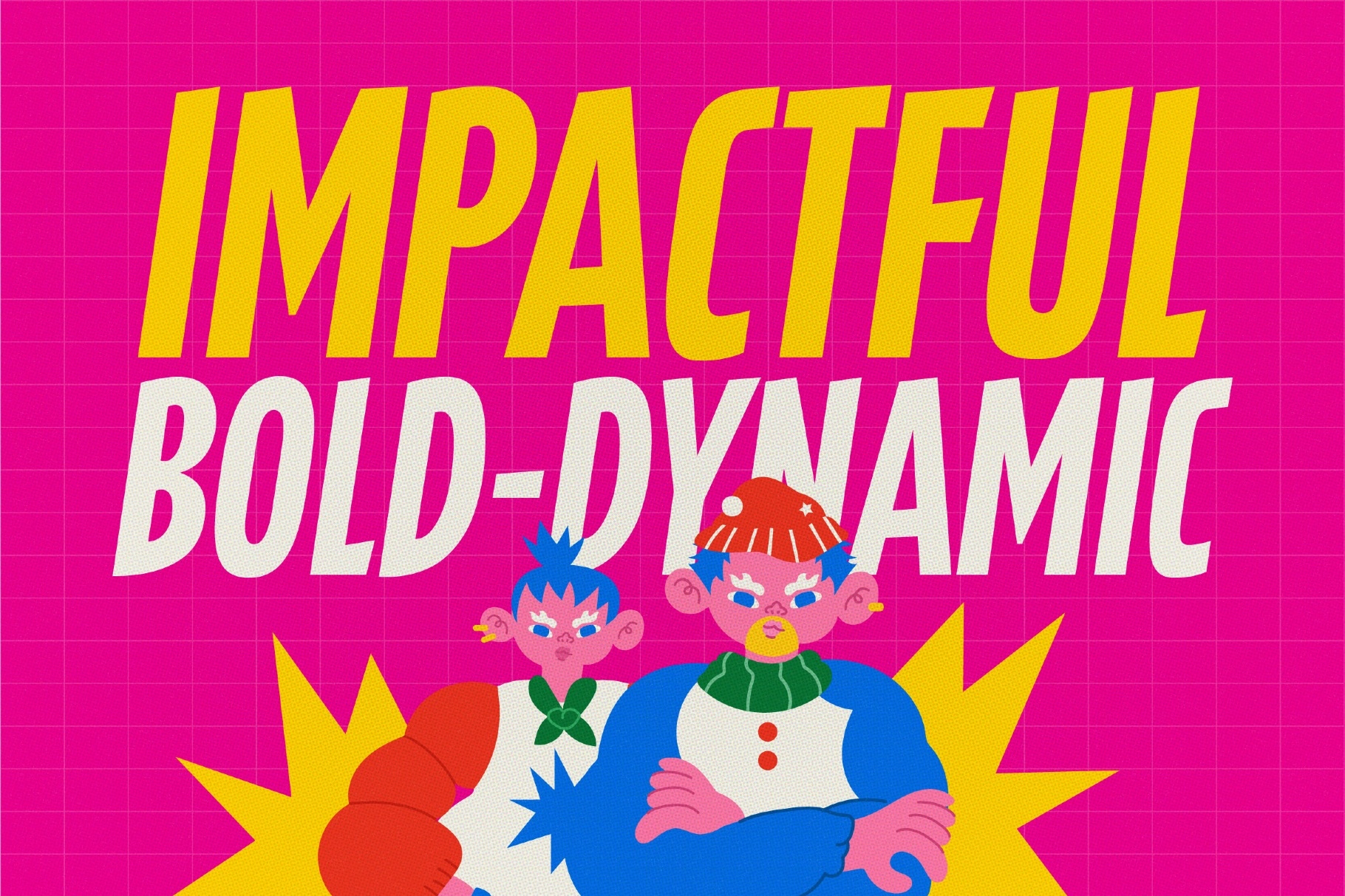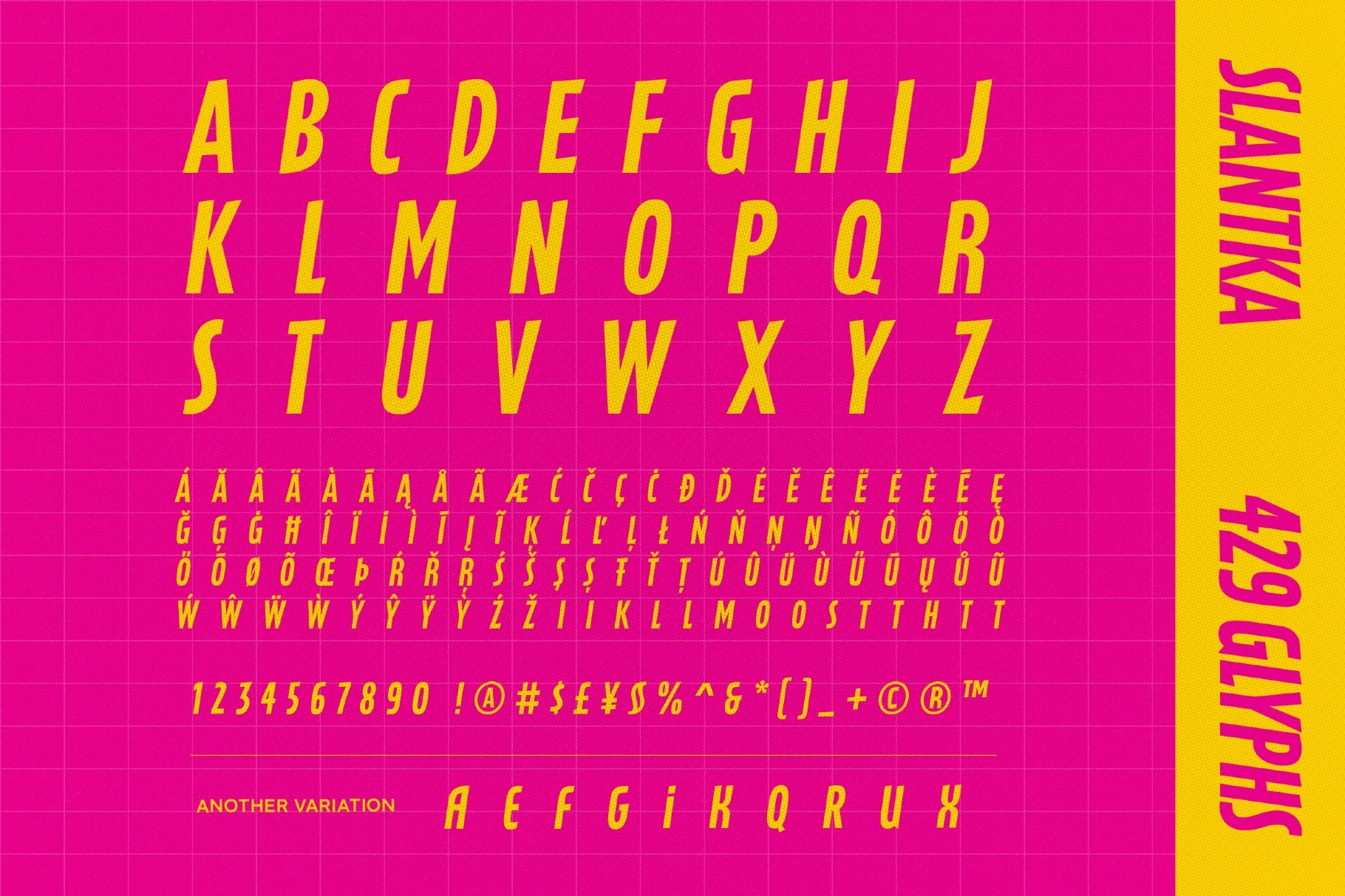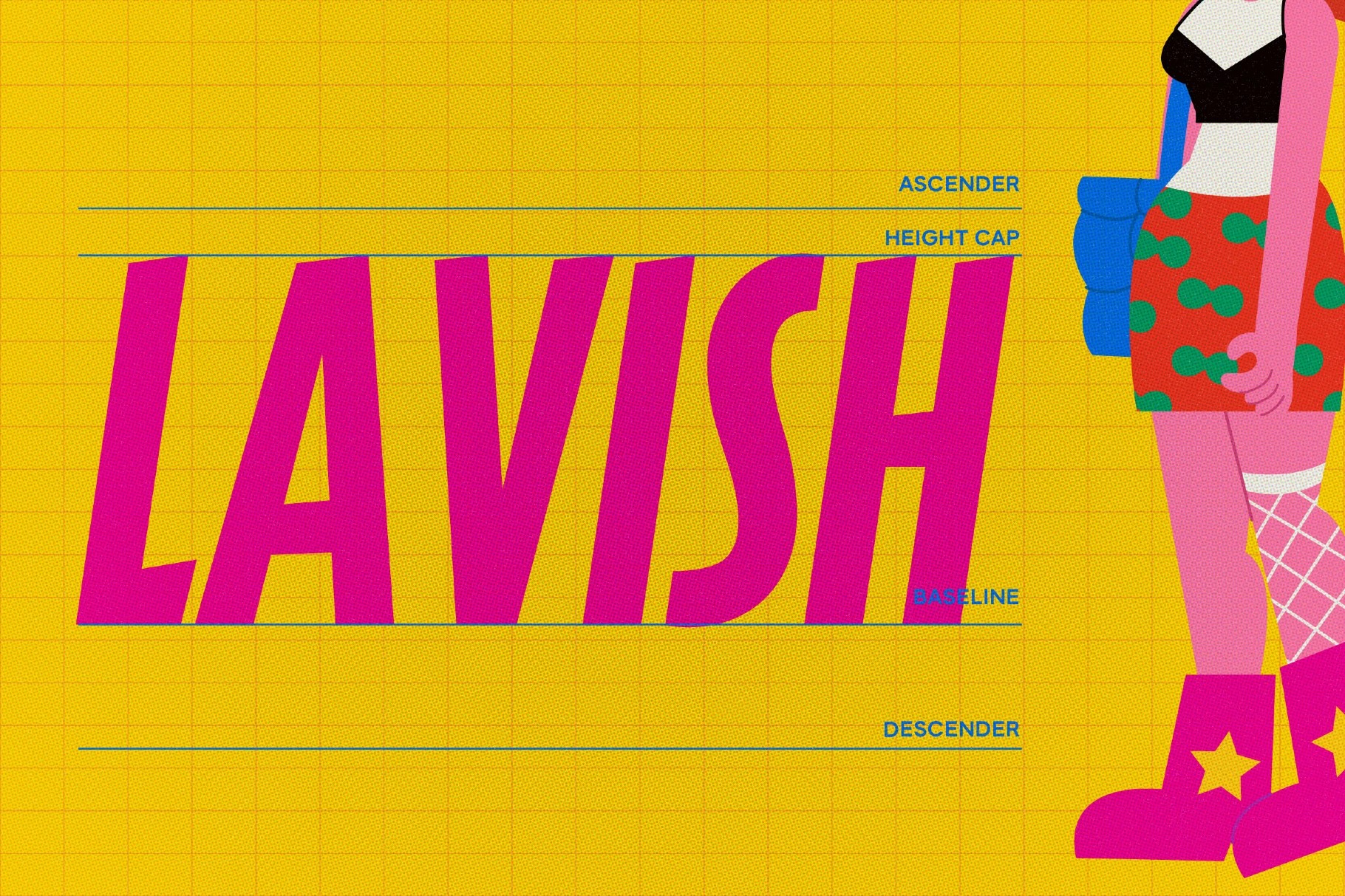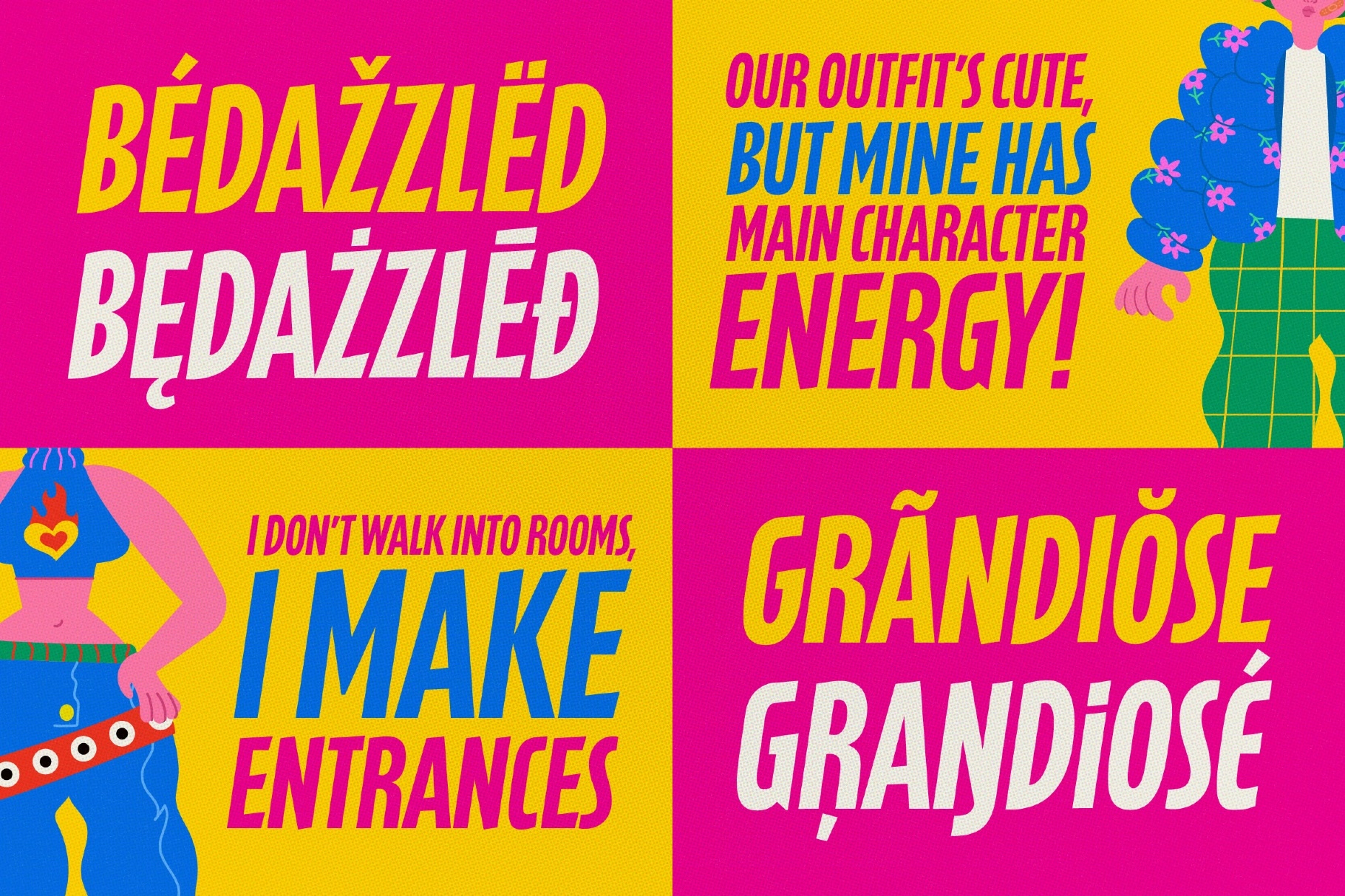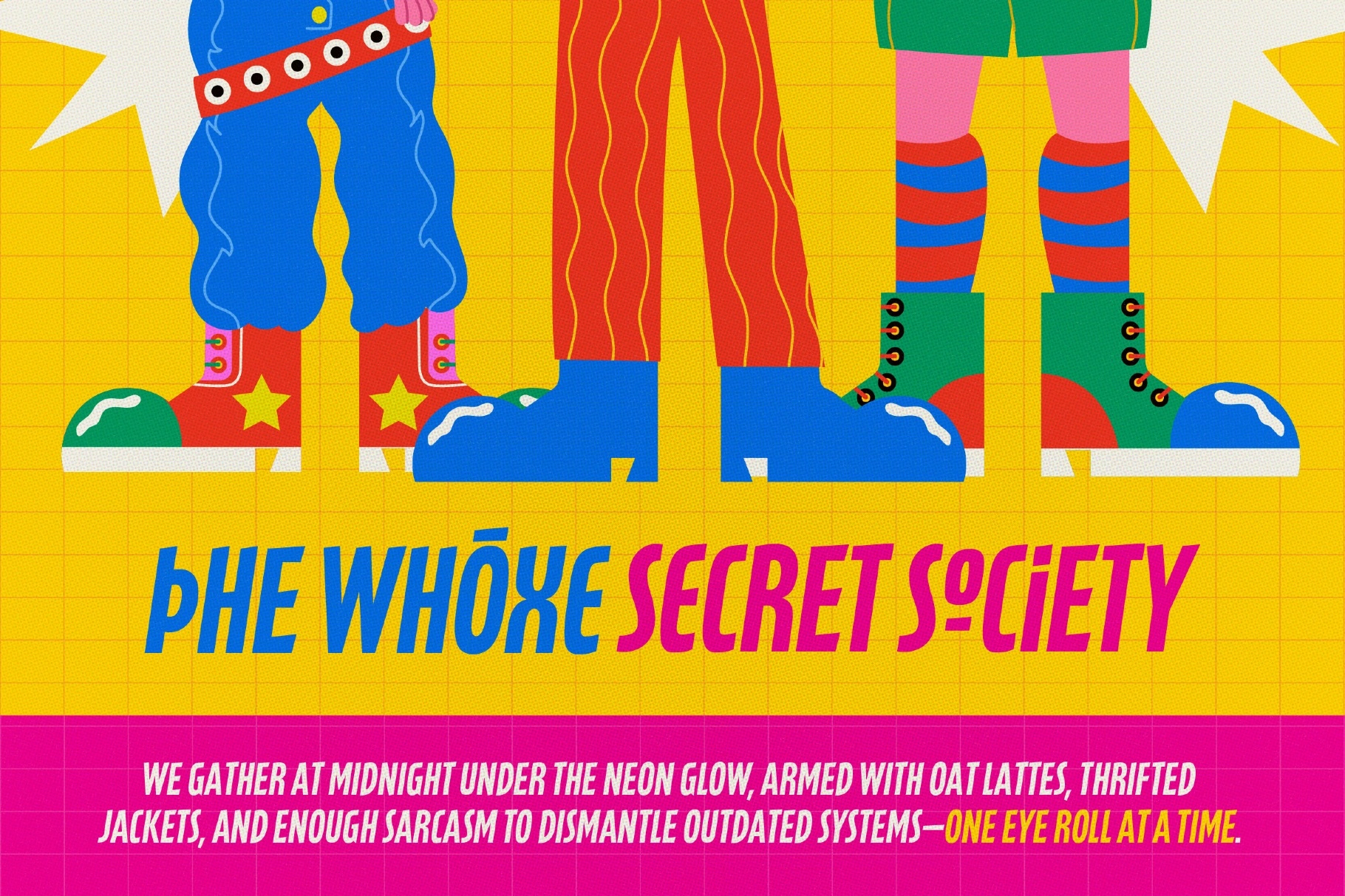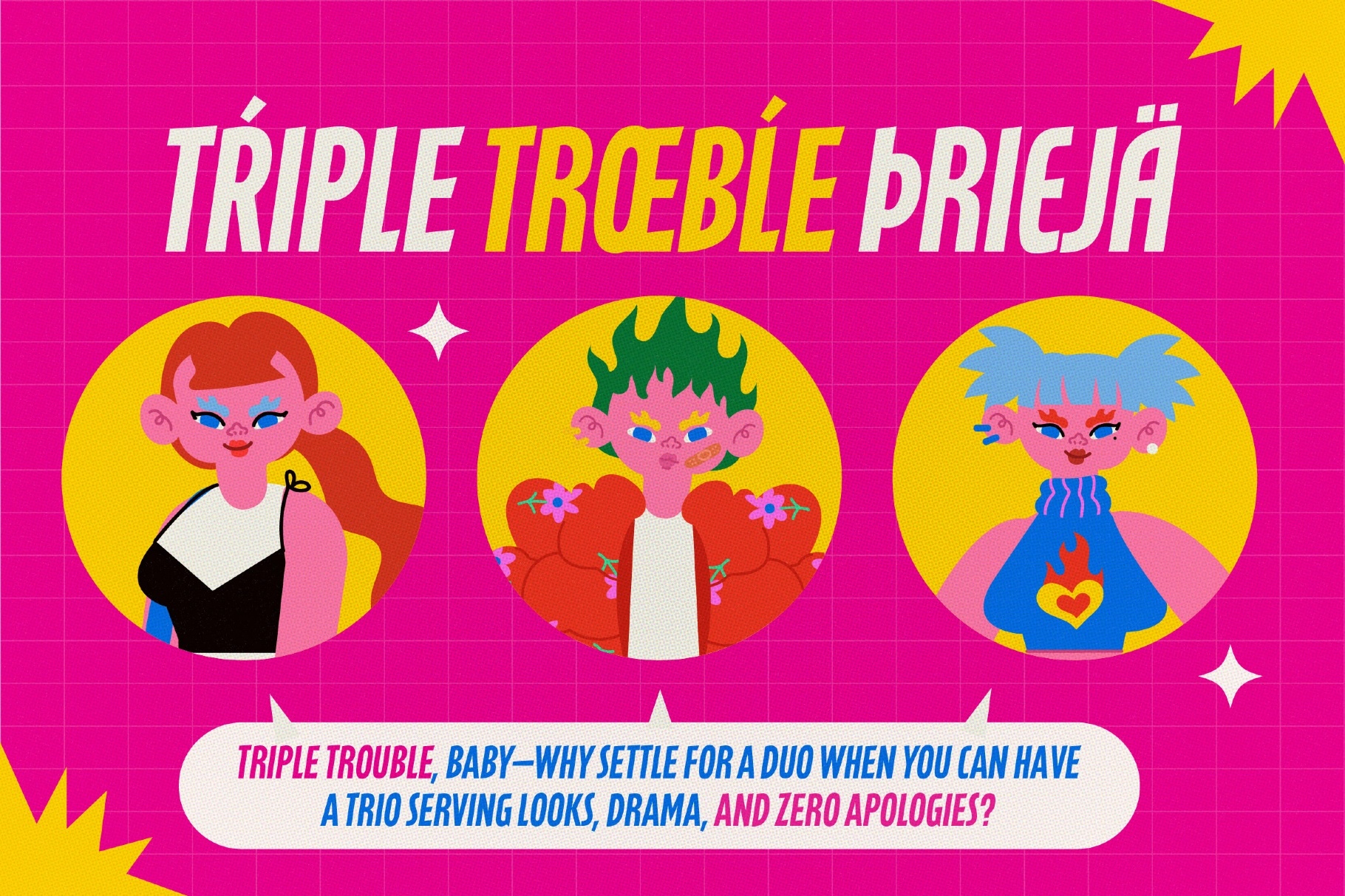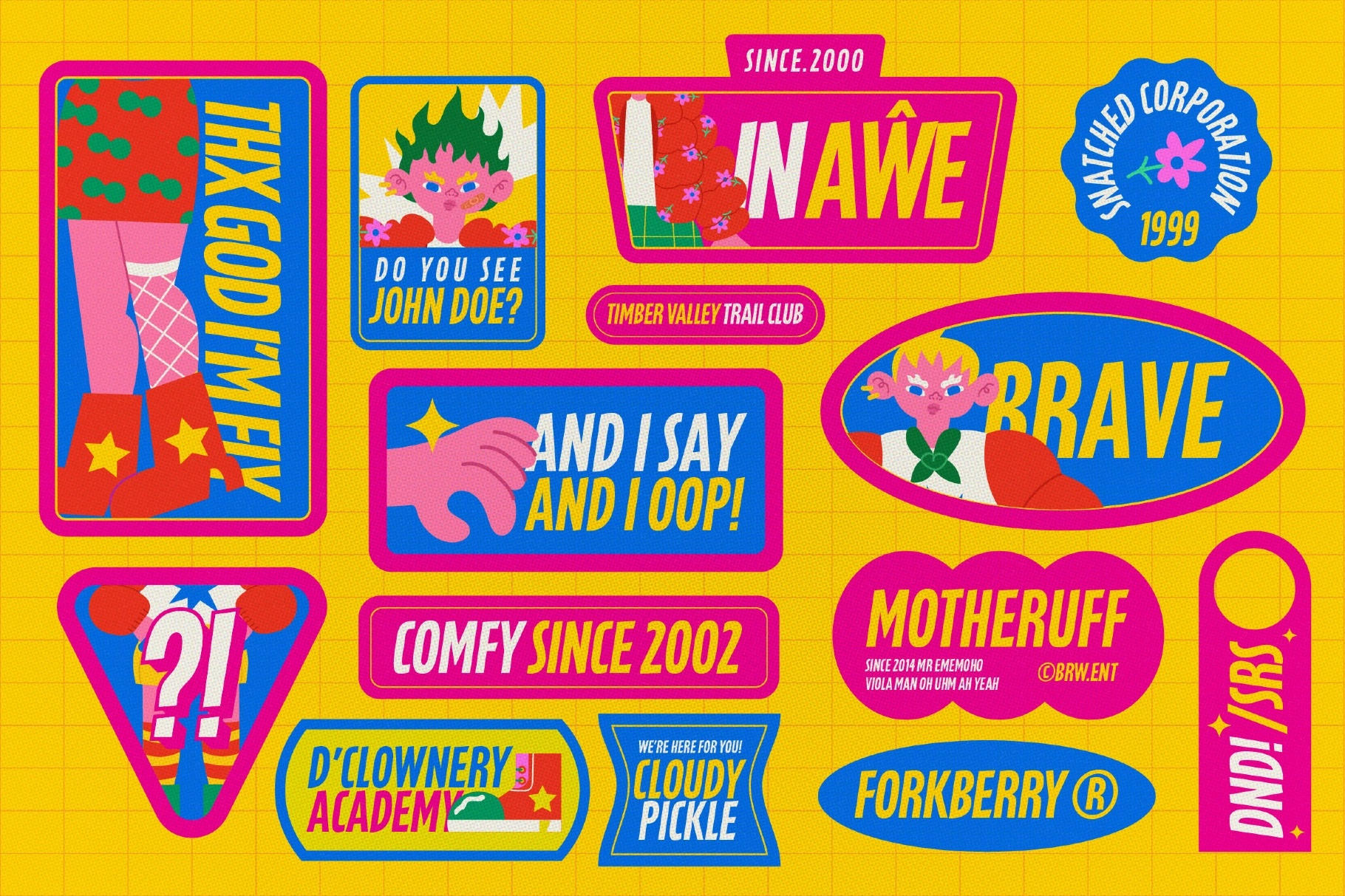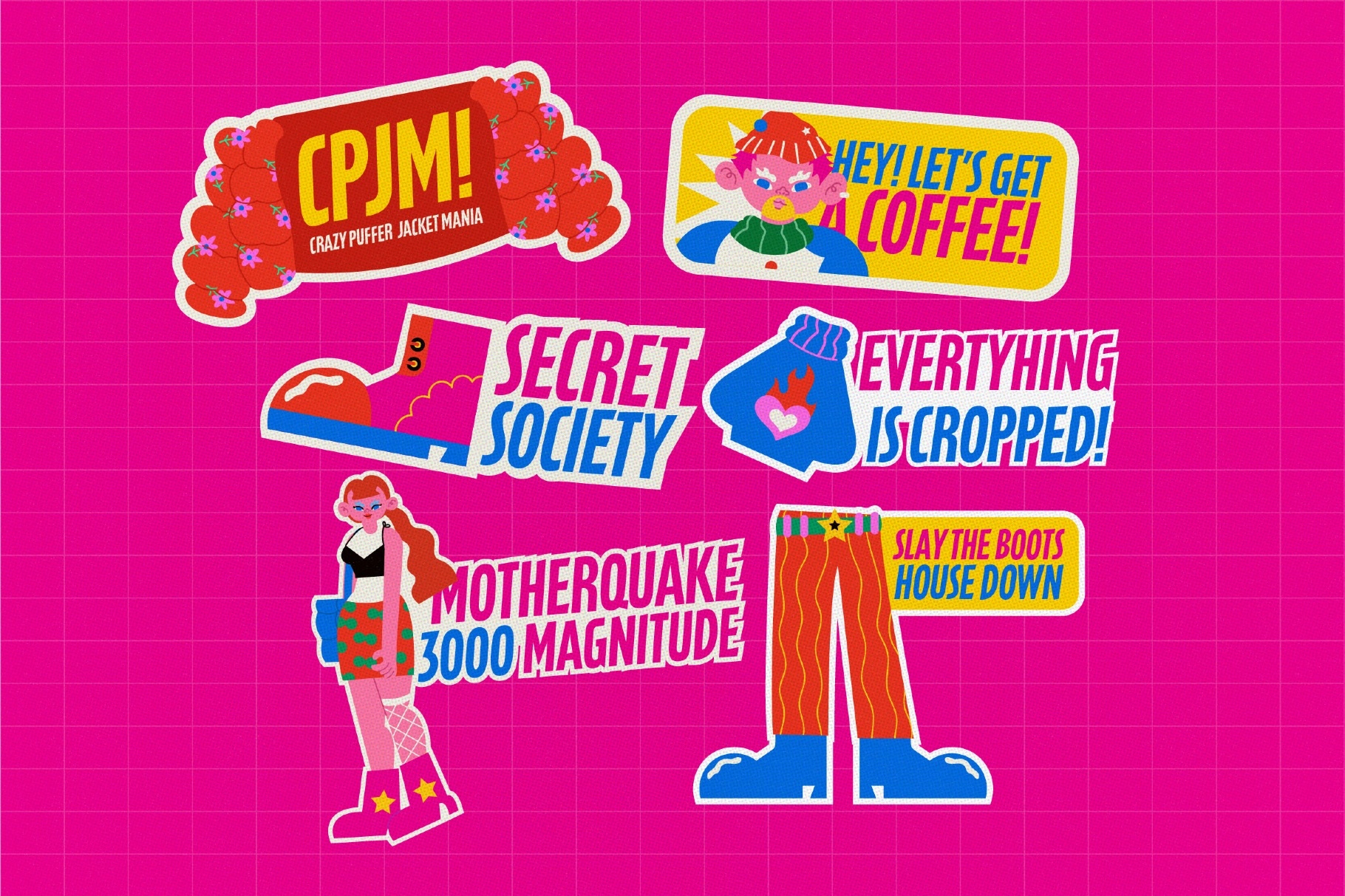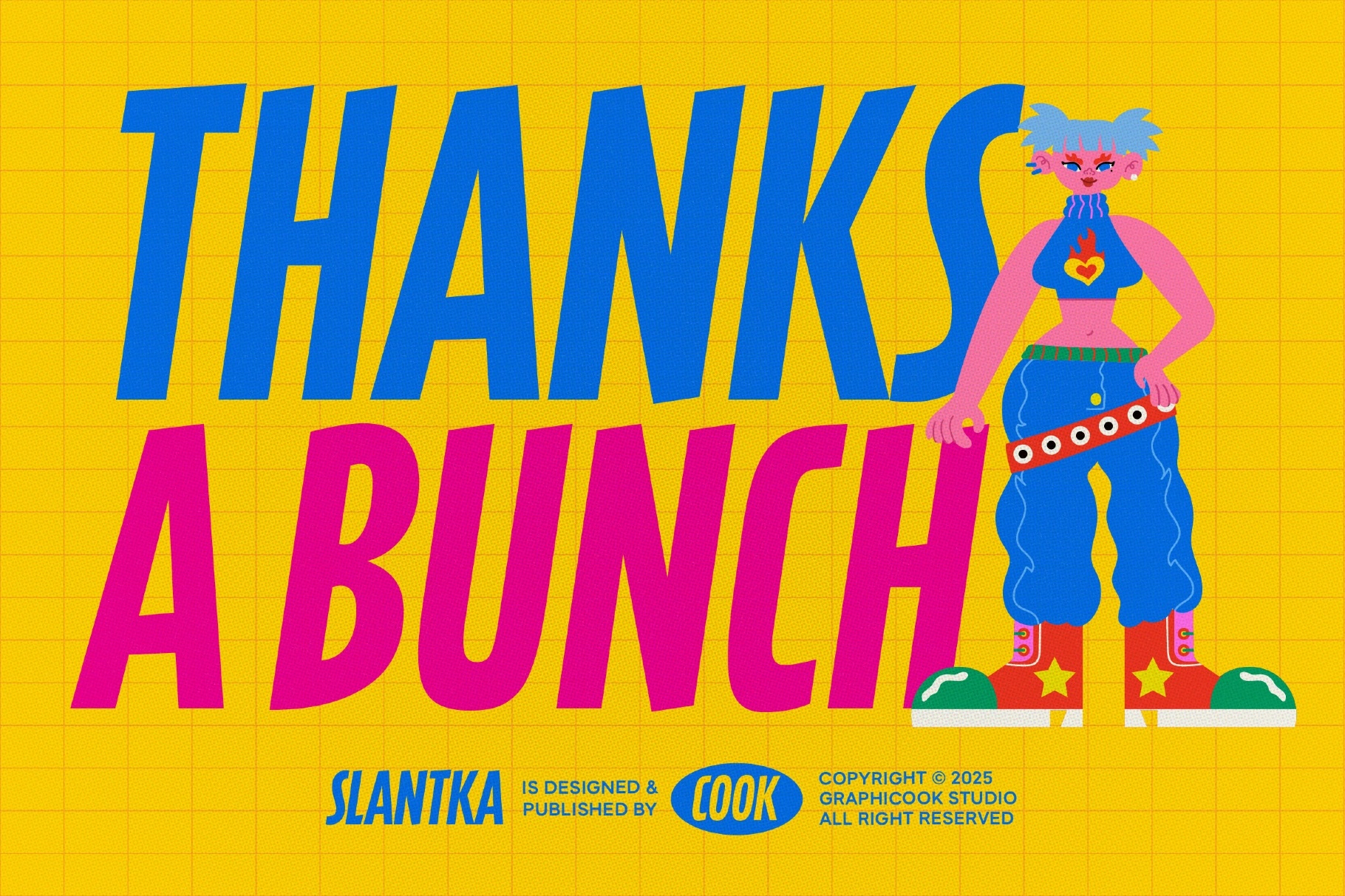
Slantka Bold And Slanted Font
Slantka is a bold, slanted marker font with a powerful and playful personality. Its striking letterforms bring energy and confidence, making it perfect for posters, branding, packaging, and other dynamic design projects.